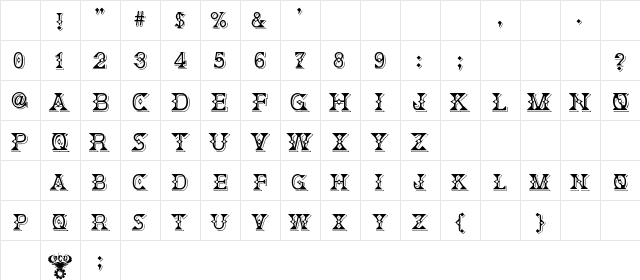
Complete Deborah Fancy Dress Regular glyph index. Displaying only characters natively supported by Deborah Fancy Dress Regular font.
Deborah Fancy Dress is a composed and adaptable typeface that performs quietly and consistently across a wide range of design contexts.